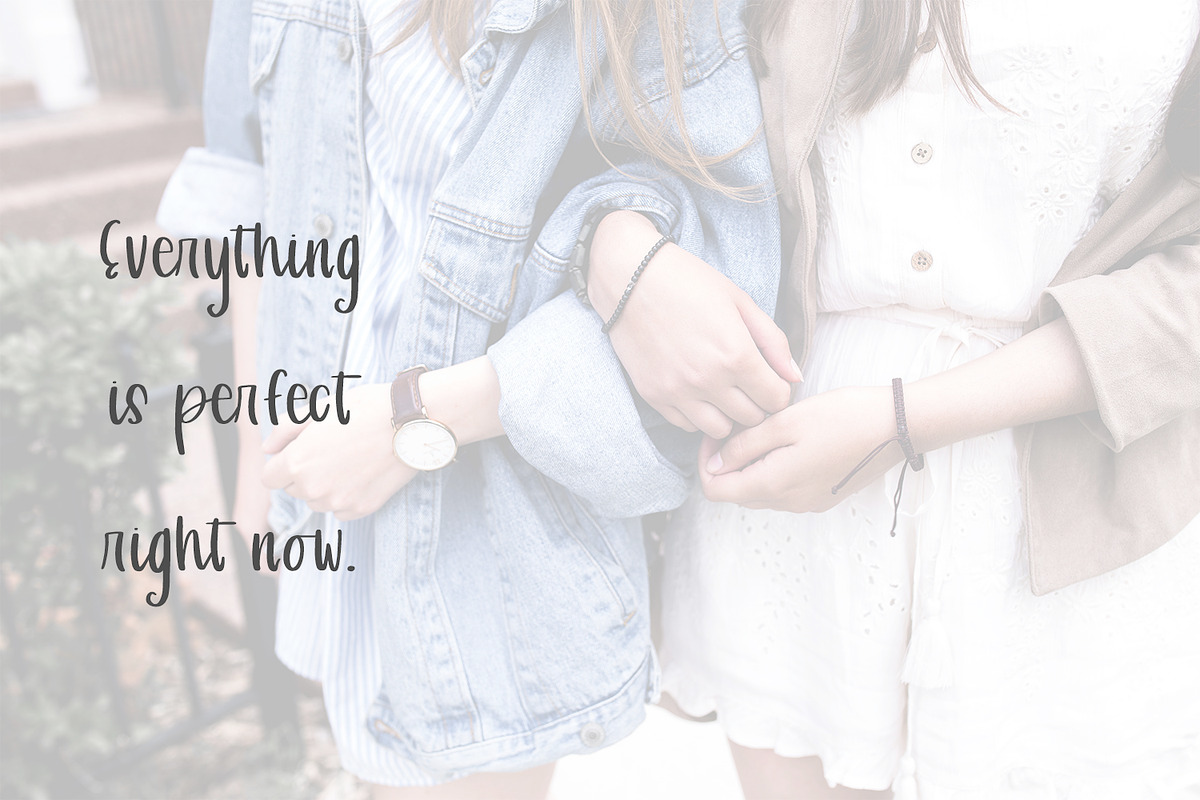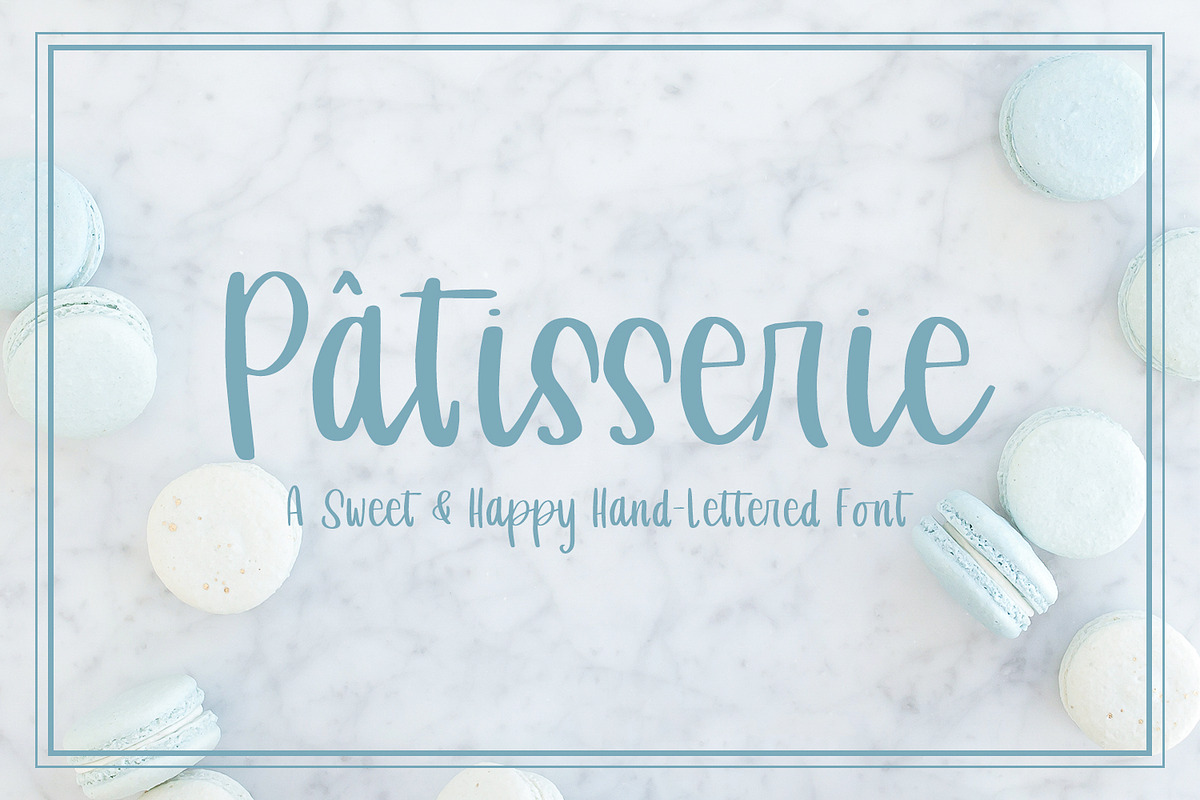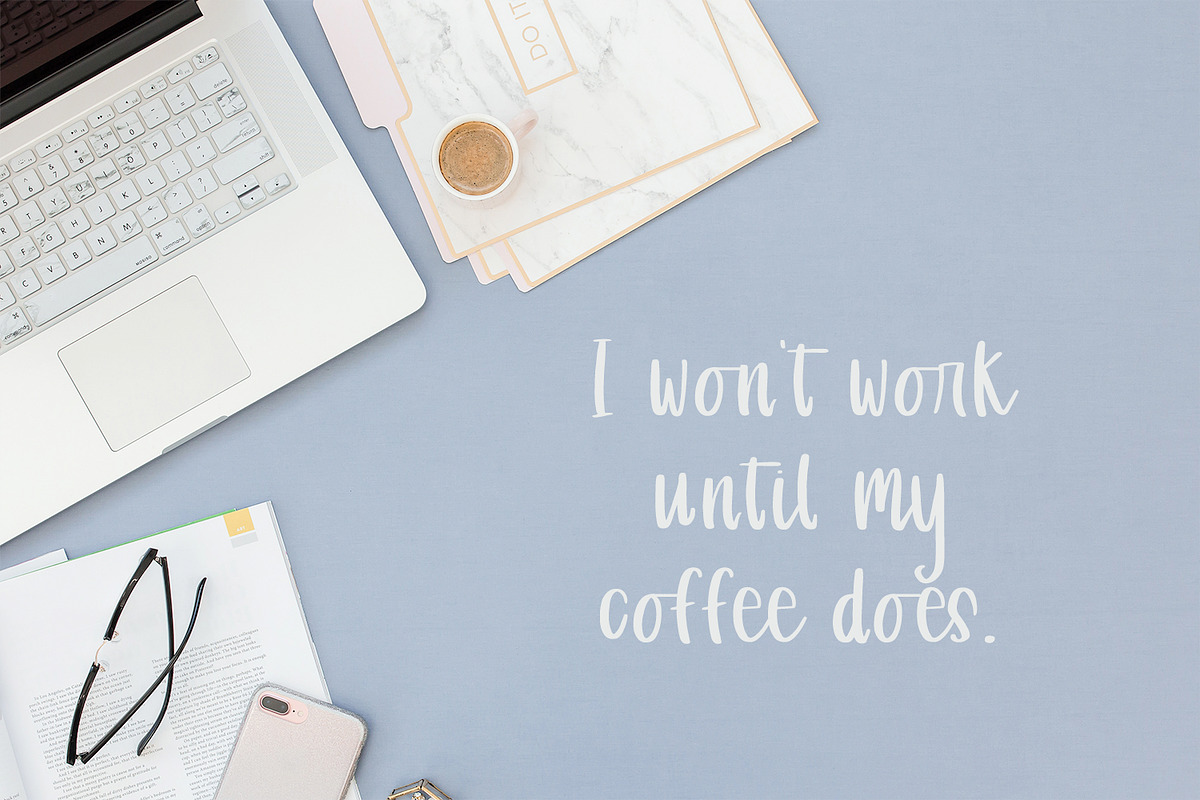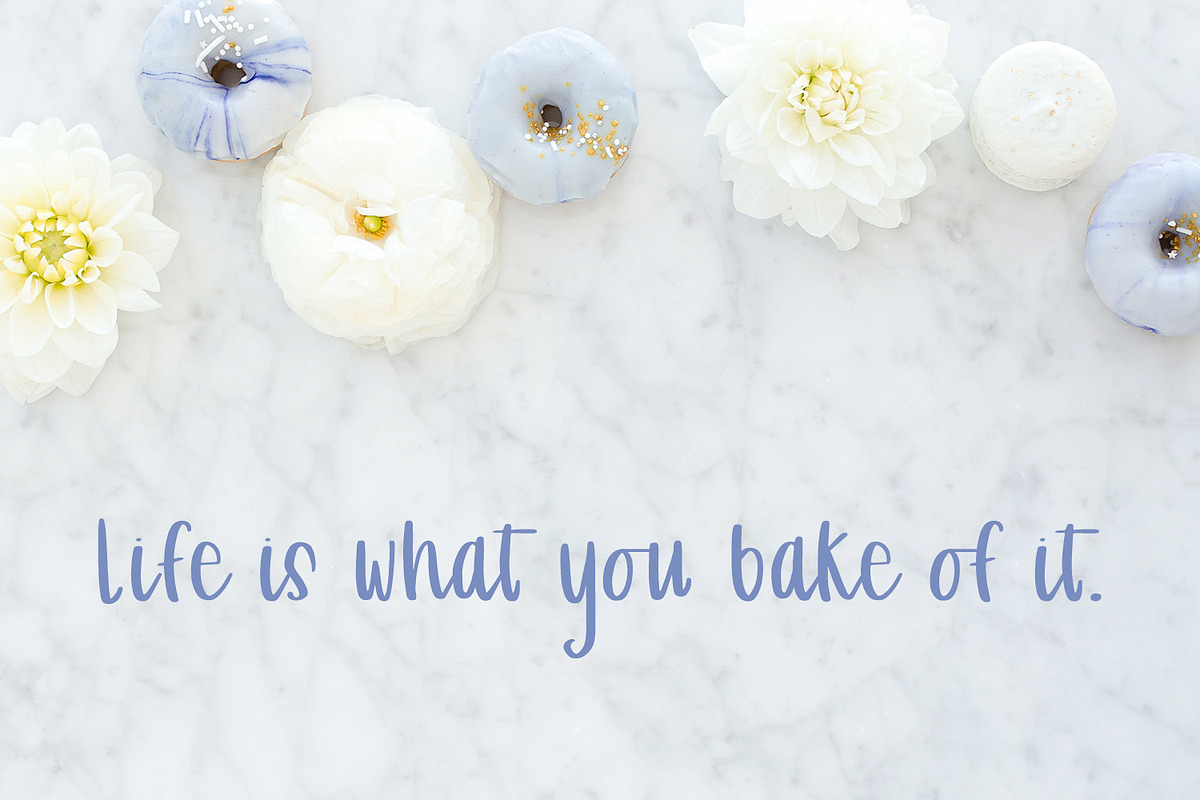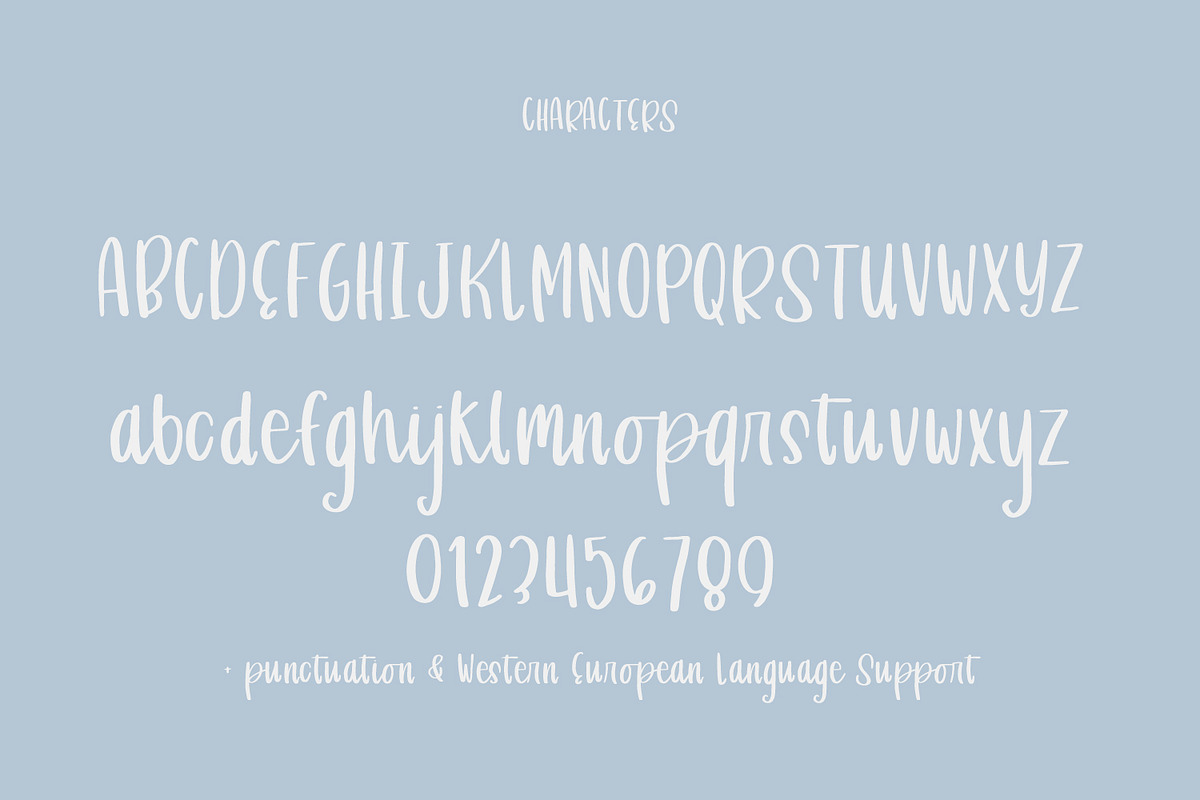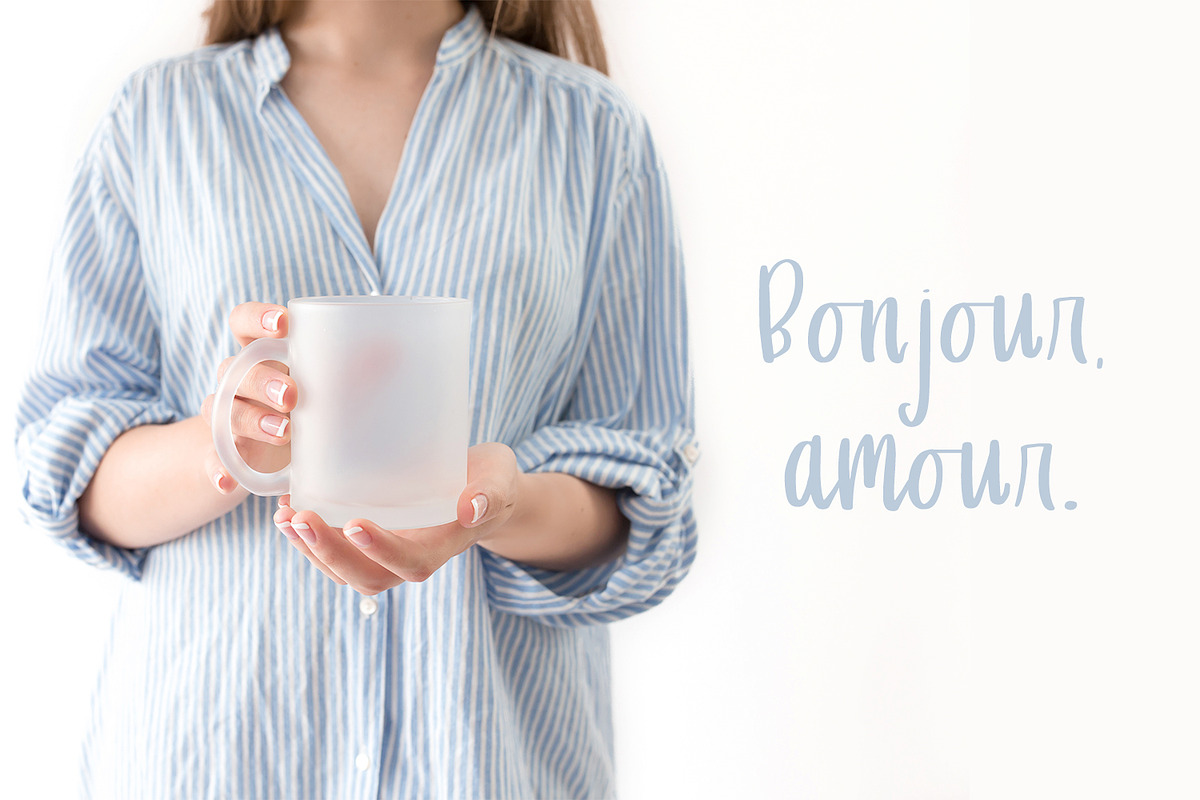
Patisserie Script
Meet Patisserie - a part-cursive, part-print script! Patisserie is a sweet & happy font, a beautiful match for bakeries, delicious packaging, and logos + branding. It's easy to read, and full of personality.
Patisserie includes punctuation & Western European language support.